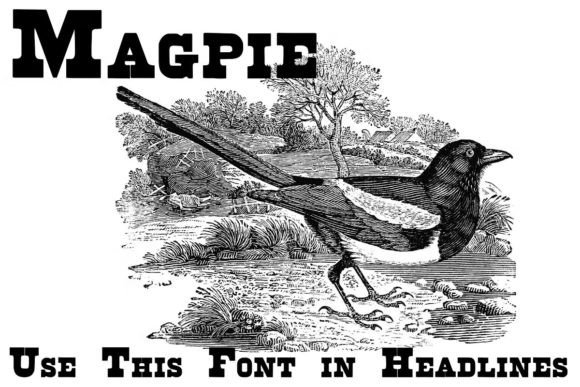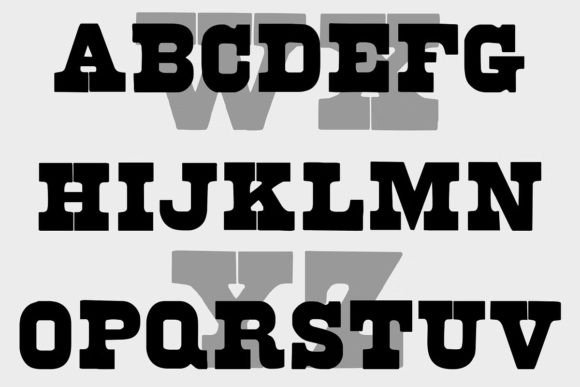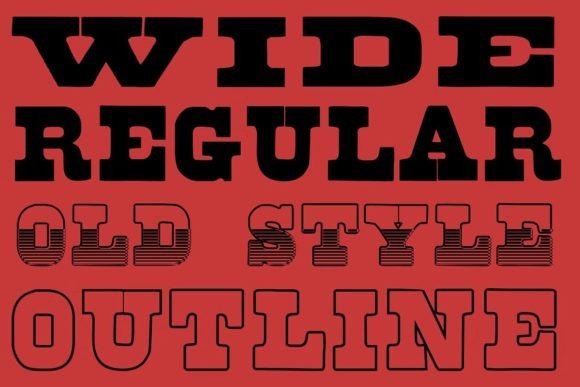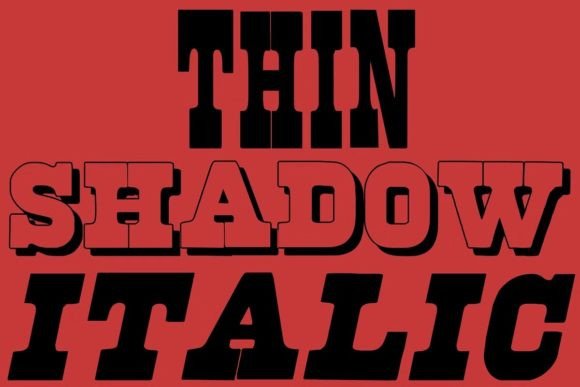
Discover the Timeless Elegance of BruteAldine
As a designer, there’s nothing quite like the thrill of stumbling upon a font that perfectly captures the essence of your creative vision. For me, that moment came when I discovered the BruteAldine Font. Its classic slab serif design radiates a timeless Western aura that instantly transports me to a bygone era.
BruteAldine is more than just a font – it’s a comprehensive pack of seven distinct styles that effortlessly adapt to a wide range of design applications. From the artistic flair of Outline and Shadow variants to the traditional appeal of the Old Style, this font is a masterclass in versatility. Whether you’re working on a branding project, a magazine layout, or a website design, the BruteAldine Font is an invaluable asset that will elevate your typography game to new heights.
Brute Aldine Font Key Features
- Font Family: Brute Aldine
- Unique Characteristic: Brute Aldine features a unique blend of traditional and modern typography, with a focus on elegance and sophistication
Designer Review: Brute Aldine Font
The Brute Aldine font is a striking, modern interpretation of traditional serif fonts. ✨ Its unique blend of sleek lines and classic elegance makes it an excellent choice for designers looking to add a touch of sophistication to their projects.
Here are some aspects where Brute Aldine truly shines:
- ✨ Unique character set: The font’s bold and condensed character set makes it perfect for headlines and titles, adding a touch of drama to any design.
- ✨ Excellent legibility: Despite its condensed form, Brute Aldine is remarkably easy to read, even at small font sizes.
- ✨ High versatility: The font’s clean design makes it suitable for a wide range of projects, from corporate branding to editorial design.
- ⚠️ Limited font sizes: While Brute Aldine is excellent at larger font sizes, it can become somewhat pixelated at smaller sizes.
- ⚠️ Limited language support: The font’s character set is primarily designed for Latin-based languages, which may limit its use for non-Latin scripts.
Overall, Brute Aldine is a solid choice for designers who want a modern, sophisticated font with a classic feel. While it may have some limitations, its unique character set and excellent legibility make it a worthwhile addition to any design toolkit.
Tips for Getting the Most Out of Brute Aldine Font
Use the Brute Aldine Font for titles, headings, and emphasis in your designs.
Combine the Brute Aldine Font with other fonts to create a unique and visually appealing typography.
Experiment with different font sizes, colors, and styles to create a cohesive look.
Use the Brute Aldine Font for:
Book covers and titles
Posters and flyers
Business cards and resumes
Any design where you want to add a touch of elegance and sophistication.